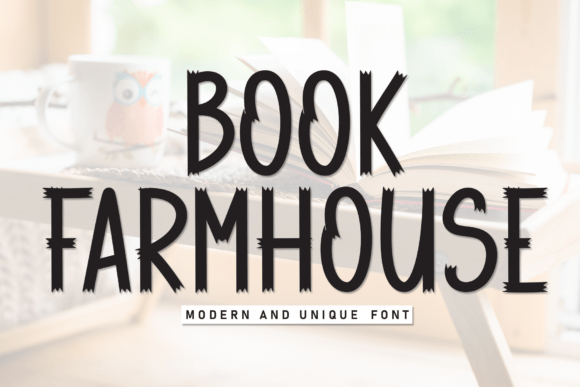
Introducing Book Farmhouse Font: Elevate Your Brand with a Modern Rustic Twist
In the world of typography, fonts play a crucial role in shaping the identity of a brand. For designers and crafters looking to add a touch of rustic charm to their projects, Book Farmhouse Font is an exceptional choice. This authoritative and high-impact display font is designed with a modern and unique rustic aesthetic, making it perfect for farmhouse-style home decor branding, organic product packaging, impactful editorial headers, and creative signage for artisanal boutiques.
What Makes Book Farmhouse Font Stand Out?
Book Farmhouse Font boasts massive, vertically elongated letterforms with a strong vertical axis and heavy visual weight. This distinctive design gives the font a commanding presence, making it ideal for headlines, titles, and signage. The font’s rustic aesthetic adds a touch of warmth and coziness, evoking feelings of nostalgia and simplicity.
Key Features of Book Farmhouse Font
- Modern and Unique Rustic Aesthetic: Book Farmhouse Font combines modern design principles with a unique rustic twist, creating a distinctive and eye-catching visual identity.
- Vertically Elongated Letterforms: The font’s letterforms are carefully crafted to be tall and slender, giving it a strong vertical axis and a sense of grandeur.
- Heavy Visual Weight: The font’s heavy visual weight ensures that it stands out, even at larger sizes, making it perfect for impactful editorial headers and signage.
- High-Impact Display Font: Book Farmhouse Font is designed to make a statement, making it an excellent choice for display purposes, such as headlines, titles, and promotional materials.
Perfect for Farmhouse-Style Branding and More
Book Farmhouse Font is an excellent choice for designers and crafters working on projects that require a rustic, farmhouse-style aesthetic. Its unique design makes it suitable for a wide range of applications, including:
- Farmhouse-Style Home Decor Branding: Add a touch of rustic charm to your home decor branding with Book Farmhouse Font, perfect for creating a cozy and inviting atmosphere.
- Organic Product Packaging: The font’s natural, earthy feel makes it an excellent choice for organic product packaging, helping to convey a sense of sustainability and eco-friendliness.
- Impactful Editorial Headers: Use Book Farmhouse Font to create striking editorial headers that grab attention and add a touch of sophistication to your content.
- Creative Signage for Artisanal Boutiques: The font’s unique design makes it perfect for creative signage, helping artisanal boutiques to stand out and showcase their unique offerings.
Tips for Using Book Farmhouse Font Effectively
To get the most out of Book Farmhouse Font, consider the following tips:
- Use it as a Display Font: Book Farmhouse Font is designed to make a statement, so use it as a display font to add impact and emphasis to your designs.
- Pair it with Simpler Fonts: Balance out the font’s bold design by pairing it with simpler fonts for body text, creating a harmonious and visually appealing contrast.
- Experiment with Colors and Textures: Add depth and interest to your designs by experimenting with different colors and textures, such as earthy tones and natural textures.
Book Farmhouse Font is an exceptional choice for designers and crafters looking to add a touch of modern rustic charm to their projects. Its unique design, heavy visual weight, and vertically elongated letterforms make it perfect for a wide range of applications, from farmhouse-style home decor branding to impactful editorial headers. By incorporating Book Farmhouse Font into your design toolkit, you’ll be able to create striking, memorable designs that stand out from the crowd.